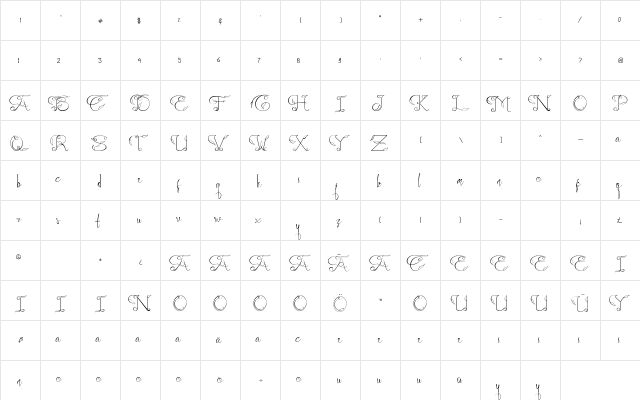
Ayuningtyas Regular
| Designer | RudiWin |
Design Context for Ayuningtyas Typeface
Ayuningtyas is a composed and adaptable typeface that performs quietly and consistently across a wide range of design contexts.